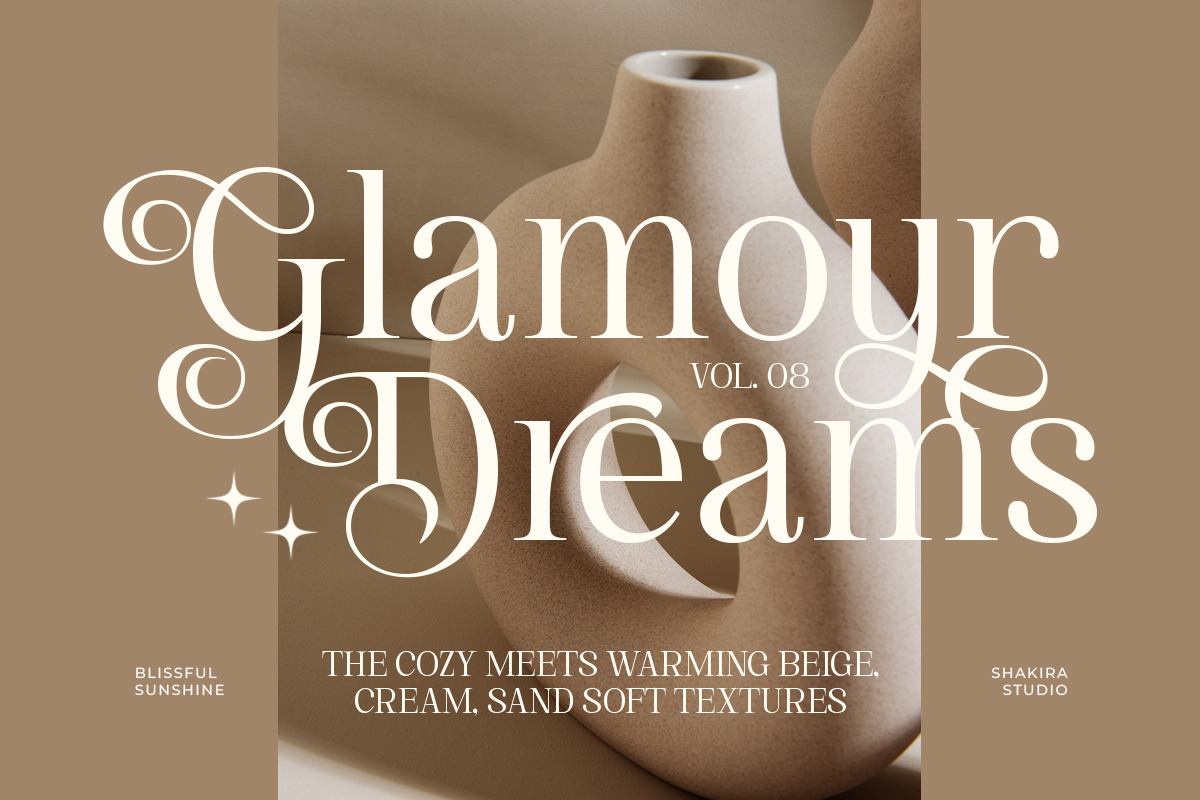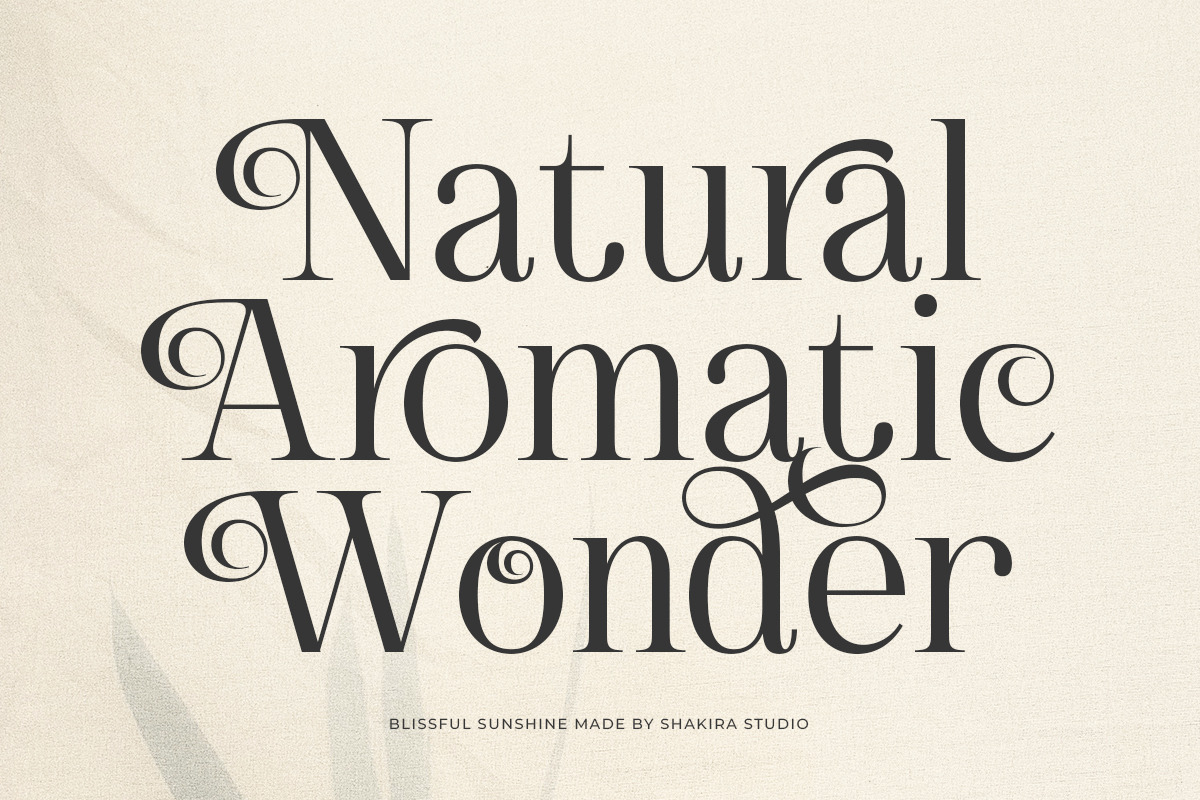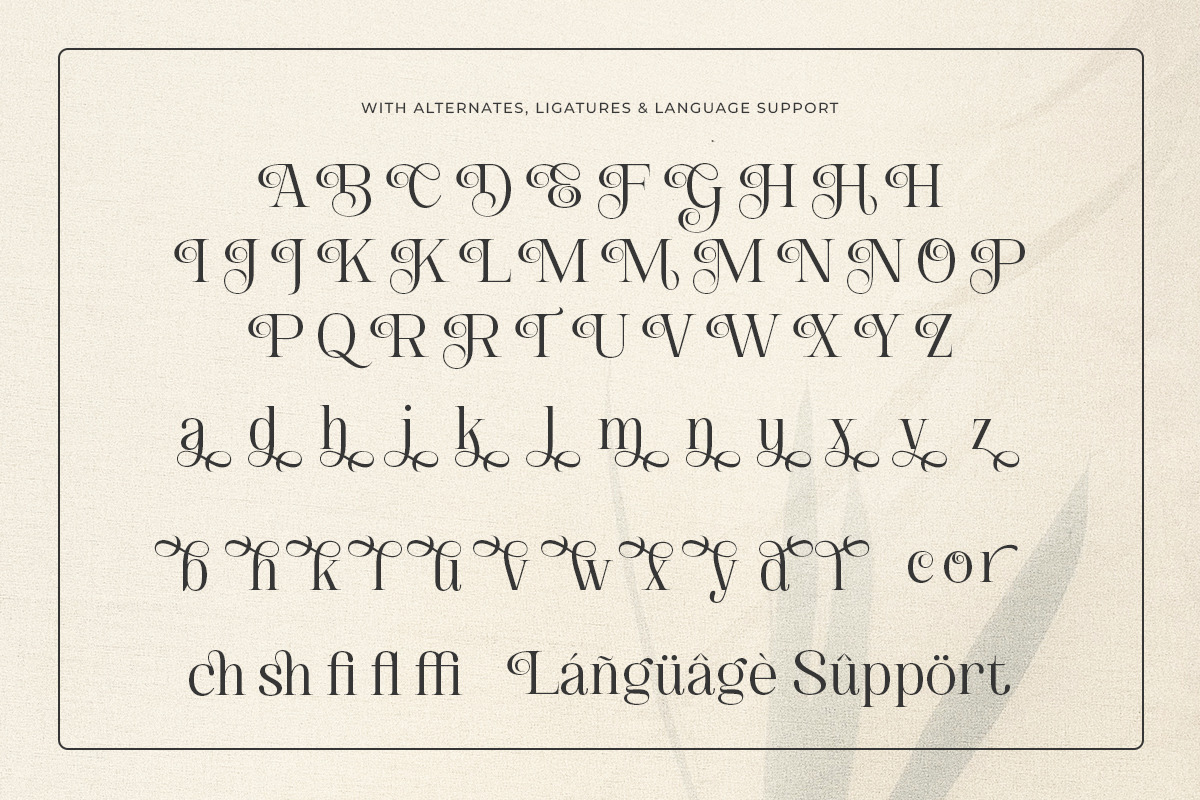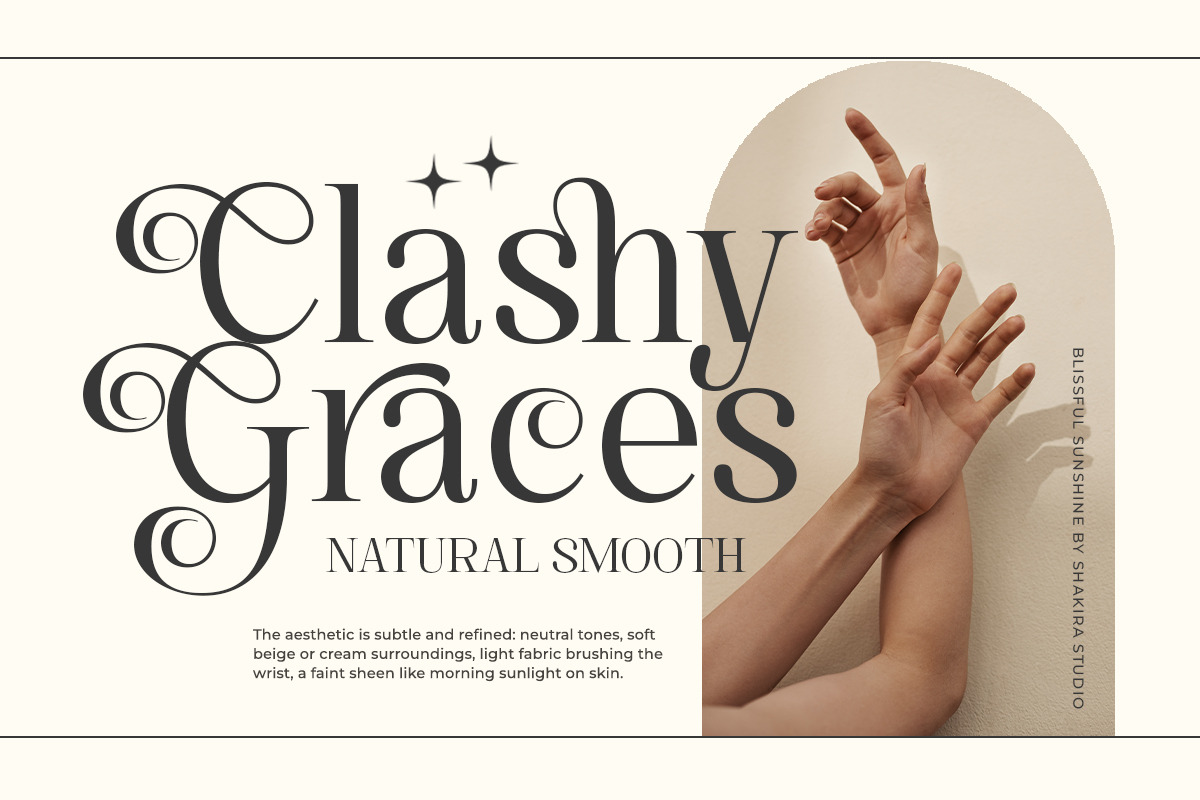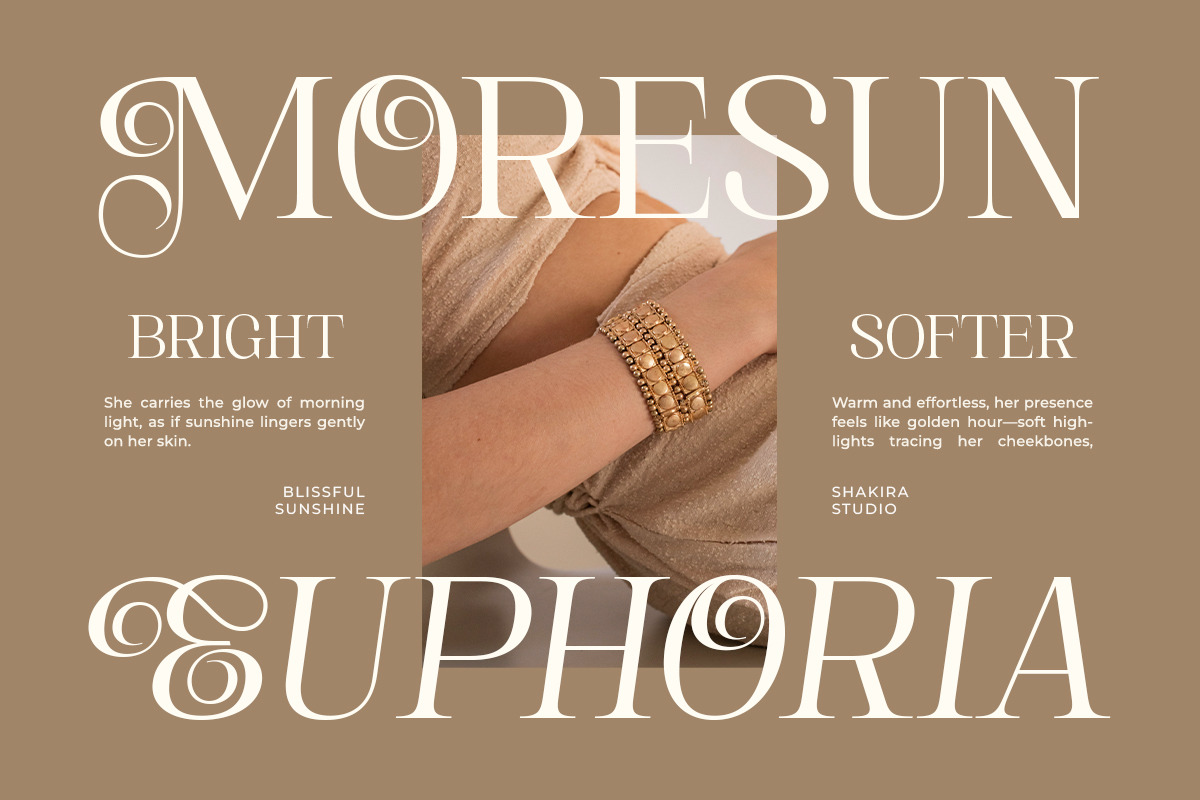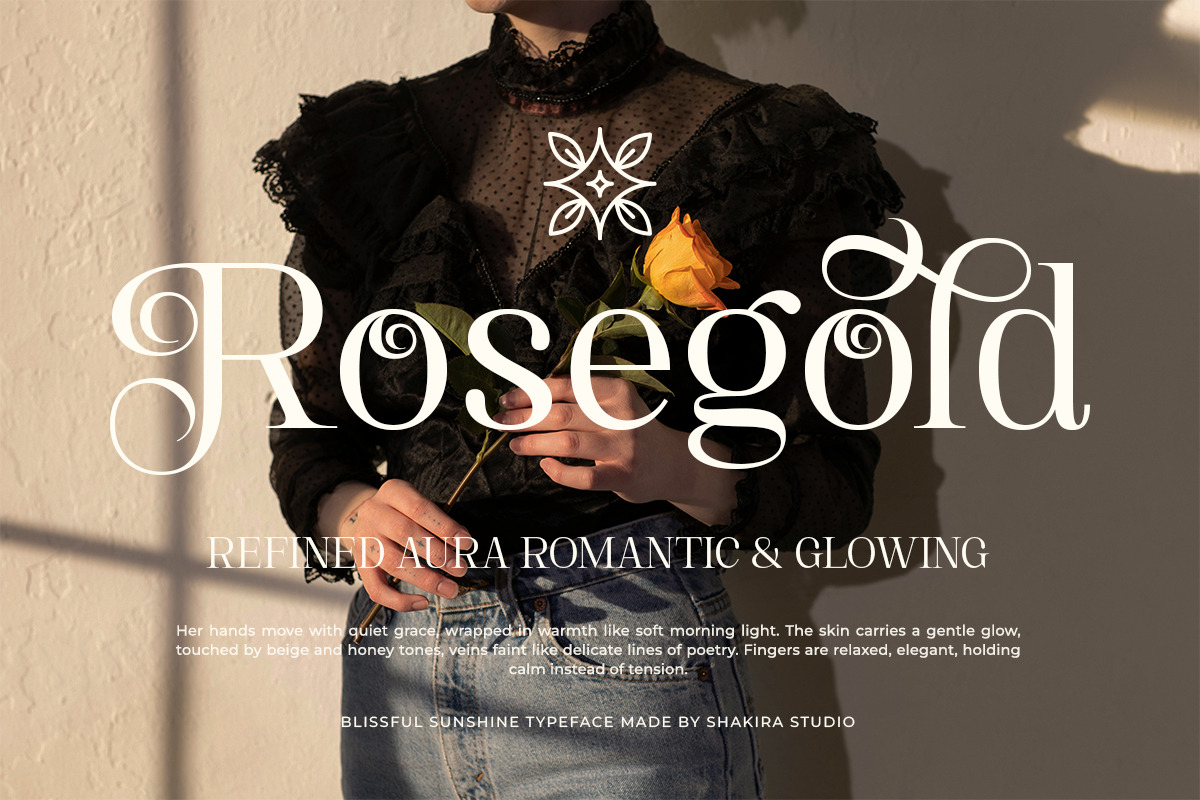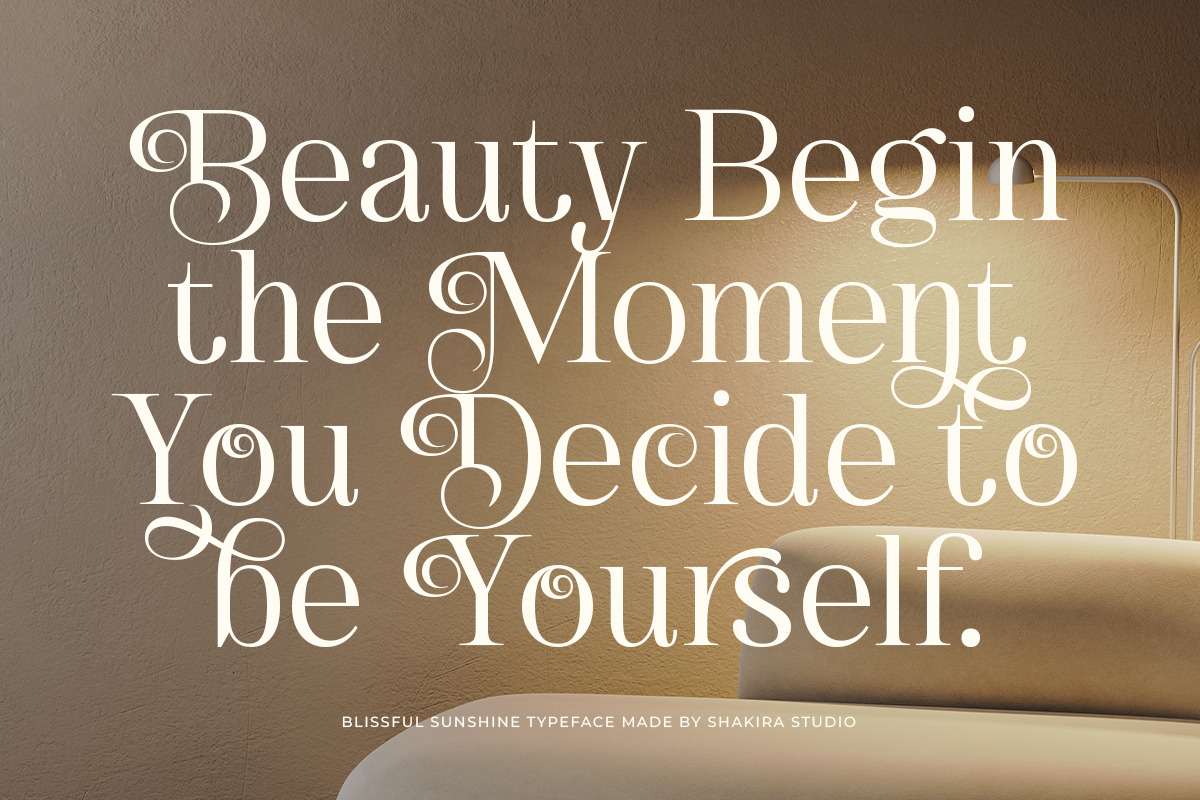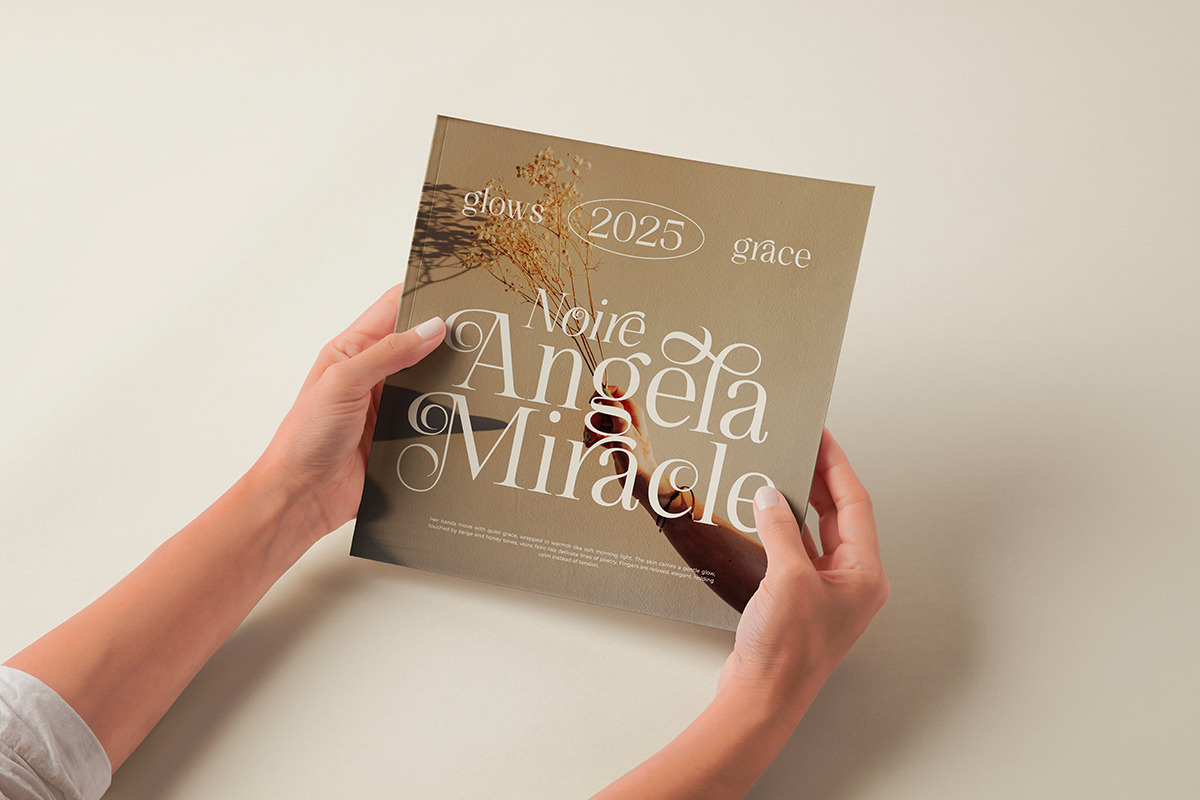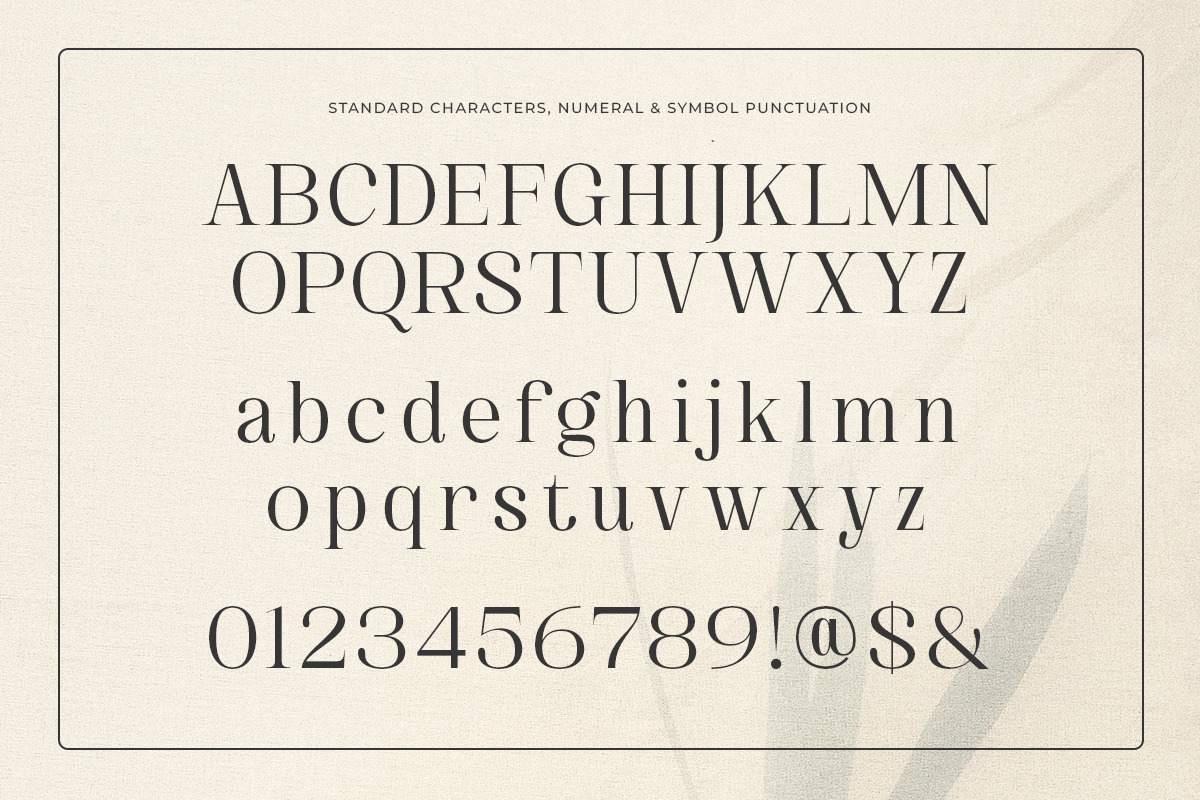
Blissful Sunshine - Romantic Swash
Blissful Sunshine is a romantic swash serif designed for elegant branding and feminine typography. Its graceful curves and stylish ligatures create a soft luxury aesthetic ideal for wedding invitations, beauty branding, and boutique identity.
This typeface combines modern serif structure with expressive swash details, producing timeless elegance with contemporary appeal.
Blissful Sunshine is perfect for designers seeking refined romantic typography.
- Regular & Italic
- Alternates & ligatures
- Swash characters
- Elegant high-contrast design
Wedding invitations, beauty branding, fashion logos, boutique packaging, editorial headlines, feminine branding.